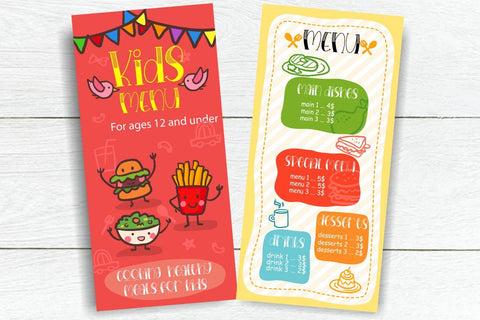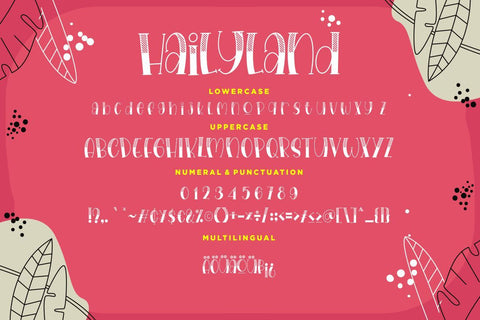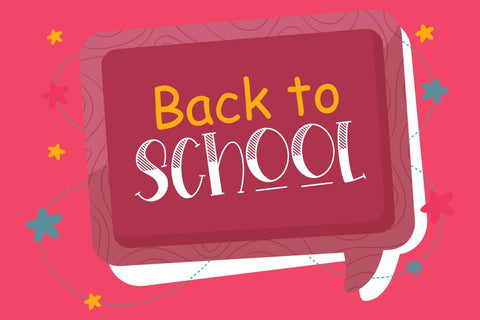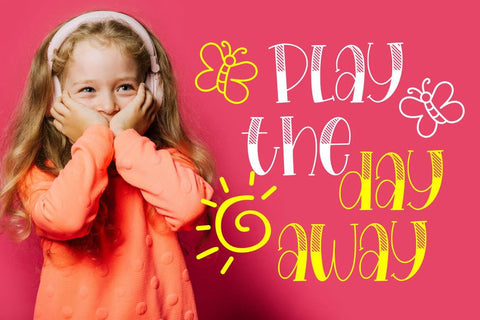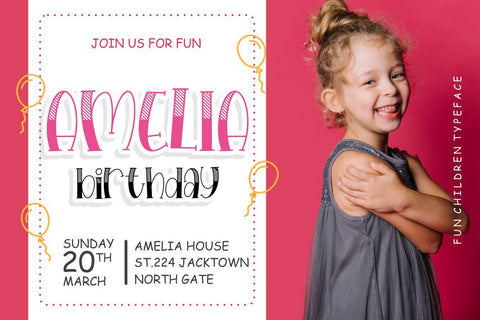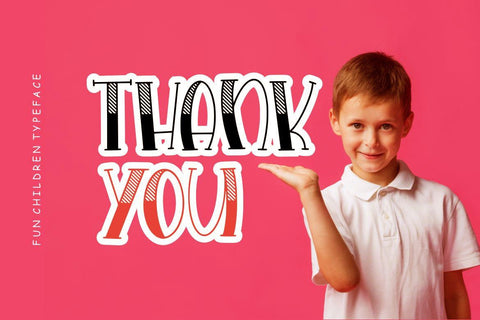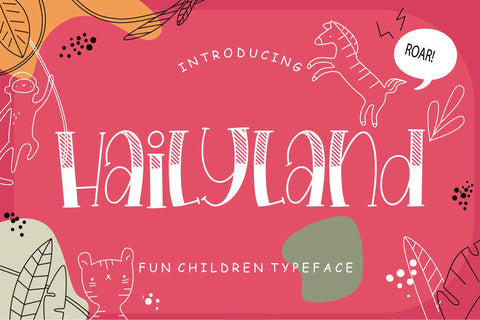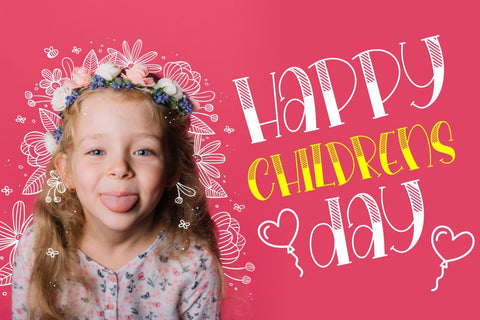
Hailyland Fun Children Typeface
Hailyland is a beautiful fun children font which perfect for children and kindergarten occasion.
- Fonts include multilingual support for; ä ö ü Ä Ö Ü ß ¿ ¡